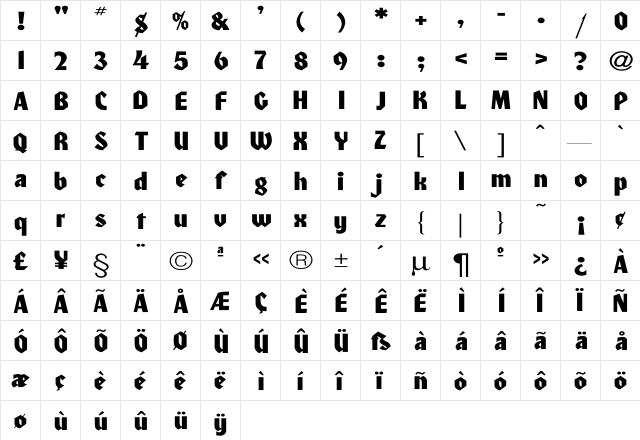
Heidelberg-Normal Wd Regular
Design Context for Heidelberg-Normal Wd Typeface
Heidelberg-Normal Wd is a composed and adaptable typeface that performs quietly and consistently across a wide range of design contexts.